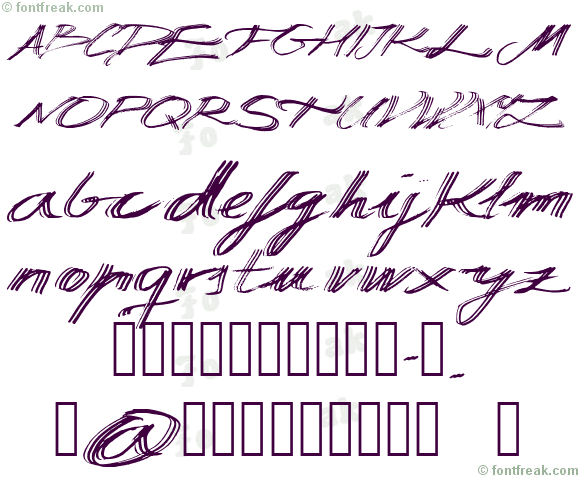
Manuscripta
About Manuscripta
Manuscripta, designed by Manuel Ramos in 2015, is a captivating handwritten font that embodies a unique charm and artistic flair. This freeware typeface features a distinctive style characterized by its fluid strokes and elegant lines, making it perfect for a variety of creative applications. The font showcases a medium stroke weight with varying contrast, giving it a dynamic appearance that captures the essence of personal handwriting. The spacing between the letters is well-considered, providing an organic flow that enhances readability while maintaining a stylish aesthetic.
The Manuscripta font is particularly well-suited for wedding invitations, where its graceful curves can add a touch of sophistication and intimacy. It also shines in the realm of artistic projects, such as movie posters, where its expressive nature can convey emotion and narrative. Additionally, restaurant menus can benefit from Manuscripta’s distinctive look, enhancing the overall dining experience with its inviting and warm appeal. Small business owners looking to establish a personal brand will find this font an excellent choice for logos and promotional materials, helping to create a memorable identity.
Targeted towards graphic designers, content creators, and small business owners, Manuscripta offers versatility and artistic flair in a user-friendly format. Its handwritten quality allows it to stand out in a crowded market, providing a personal touch that digital fonts often lack.